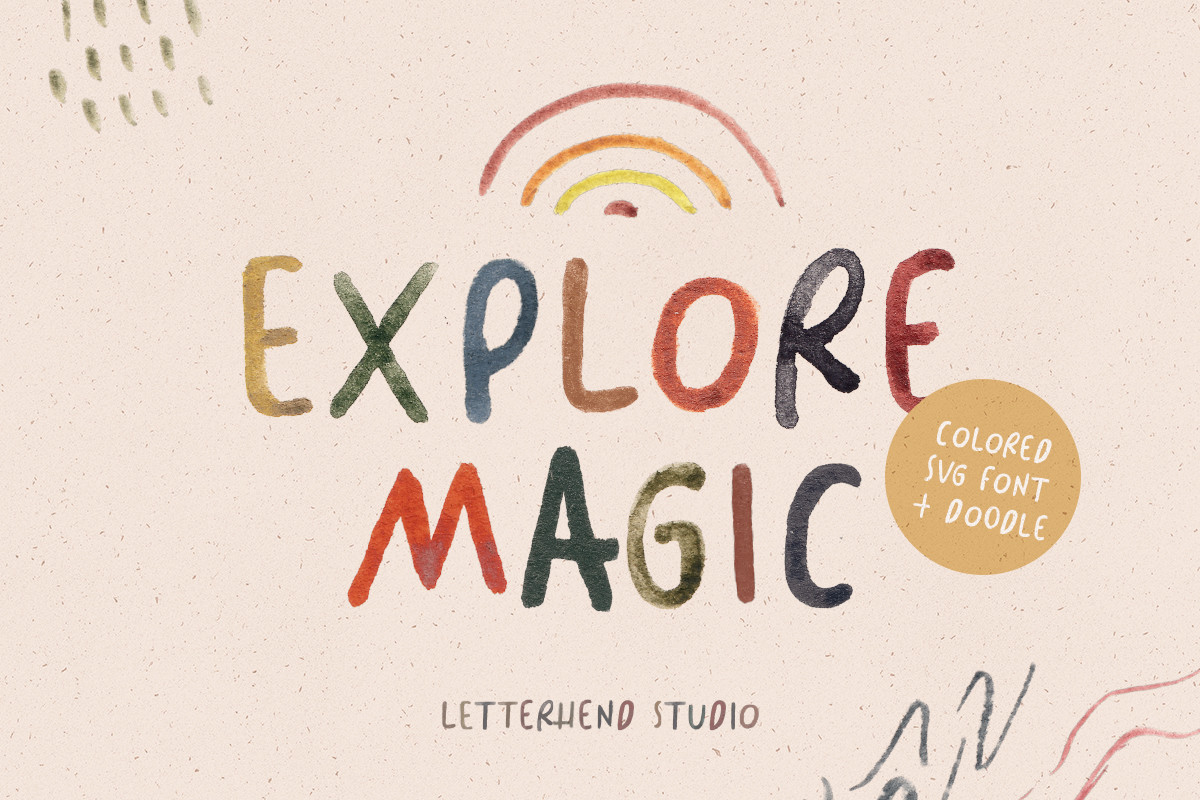
Explore Magic Font
Perfect for branding, posters, invitations, packaging, and whimsical editorial designs.
The Explore Magic Font excites designers with its enchanting, playful style that brings a sense of wonder and creativity to any project.
The Explore Magic Font Free Download is a charming display typeface featuring quirky, hand-drawn letterforms that add personality and a magical touch. It’s ideal for children’s books, event invitations, and creative branding.
One of the key strengths of Explore Magic Font is its ability to evoke imagination and fun, making your designs feel lively and unique.
In branding, Explore Magic communicates creativity, joy, and fantasy. It pairs perfectly with colorful palettes, whimsical illustrations, and playful layouts to captivate your audience.
For digital projects, this font enhances social media posts, website headers, and digital invitations, giving your content a vibrant and magical vibe.